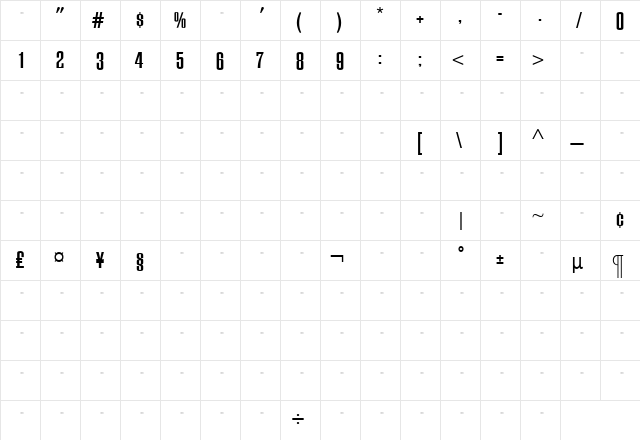
EuropaGrotesqueBoldTab Roman
Design Context for EuropaGrotesqueBoldTab Typeface
EuropaGrotesqueBoldTab offers clean, dependable letterforms without strong stylistic allegiance, making it a practical choice for designers who need flexibility. The heavy weight commands attention and anchors typographic hierarchies.